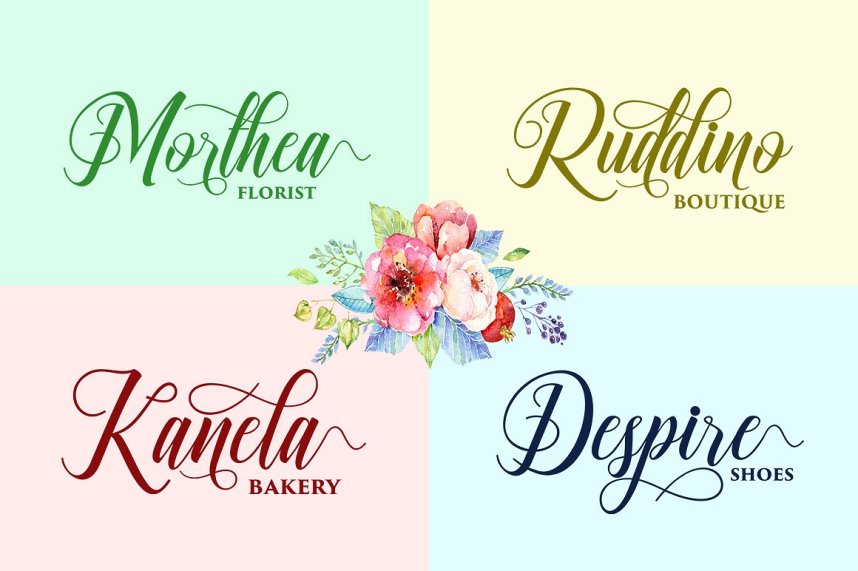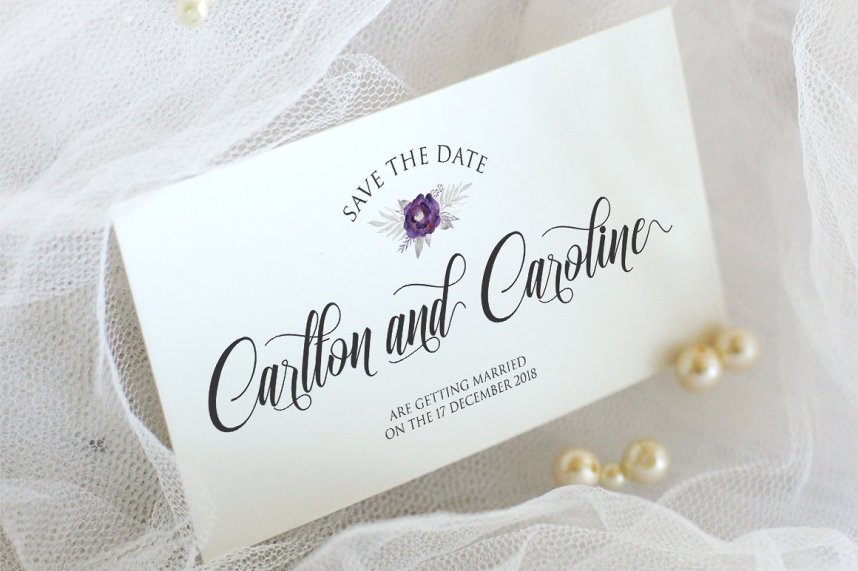
Ganesha Script Font – Free Demo
A new modern calligraphy font. Introducing – Ganesha is modern calligraphy design, including Regular. This font is casual and pretty with swashes. Can used for various purposes. such as logo, product packaging, wedding invitations, branding, headlines, signage, labels, signature, book covers, posters, quotes and more.